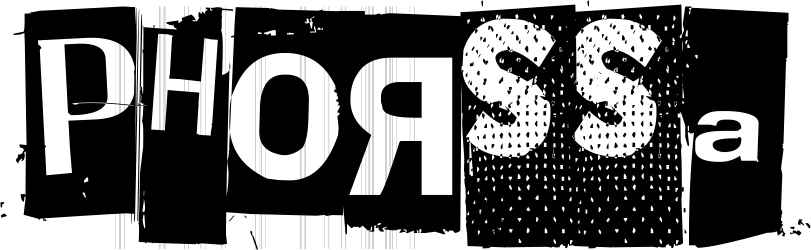
Phorssa Font
Motivating users to run a flourishing writing design requires a special font with a unique look. Phorssa as an 80s punk font with an out-of-date dirty design comes to work successfully and gets ahead of others a few steps further in creating headlines, movie titles, book covers, posters, and more.
In addition, the grunge design of this punk font where each letter stands in a dark box can bring good aftereffects for your typography, although it lacks lowercase letters.